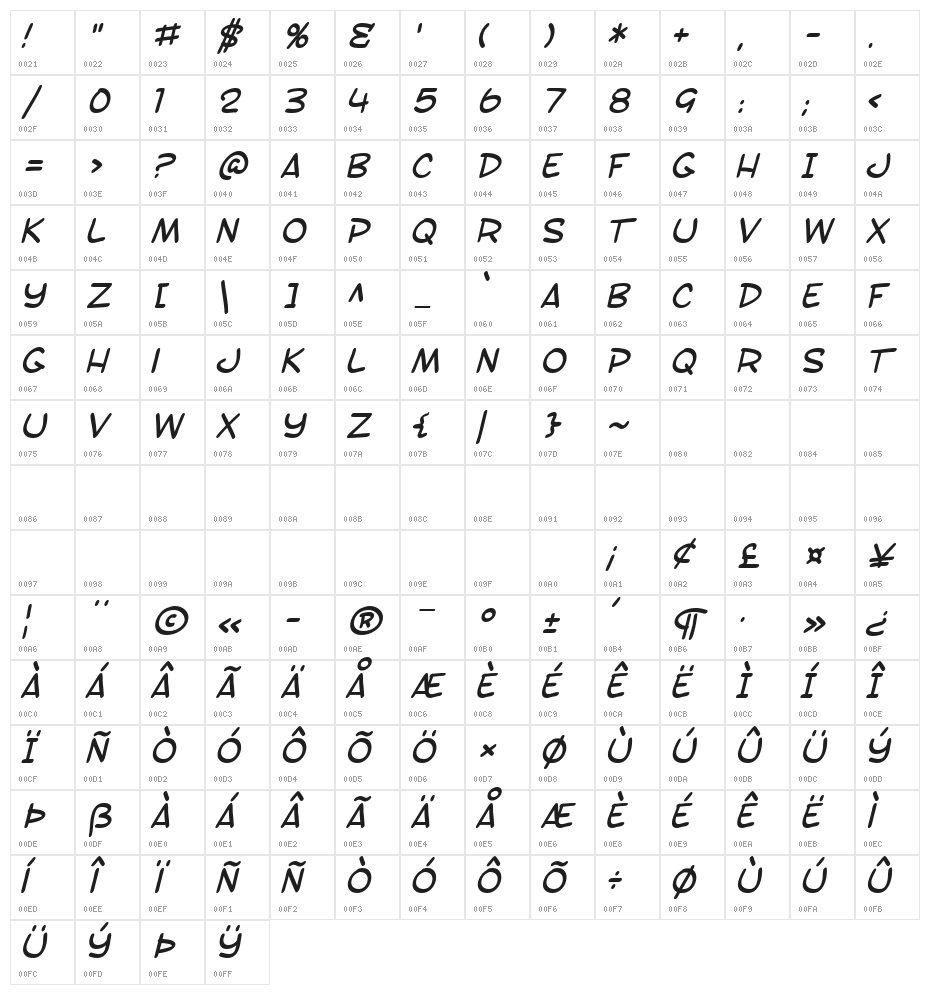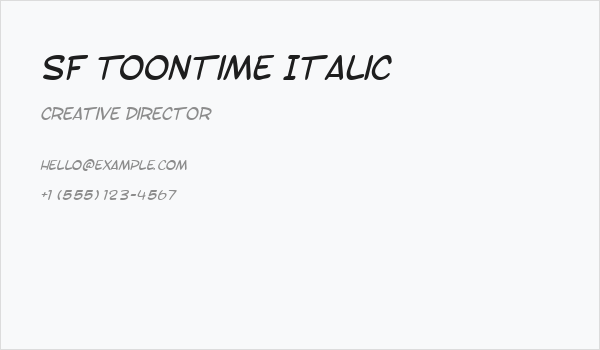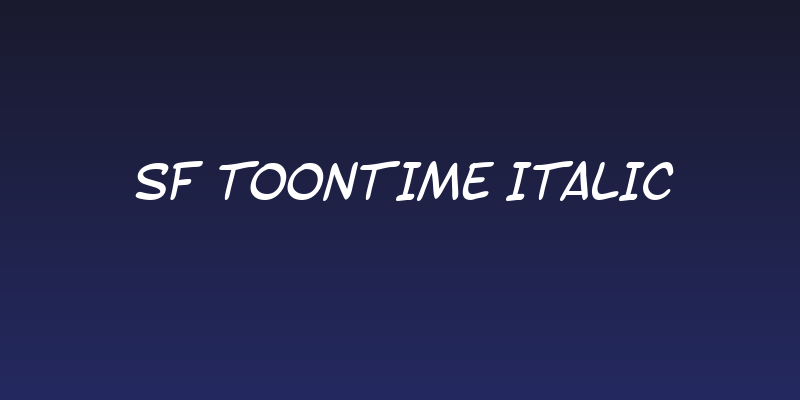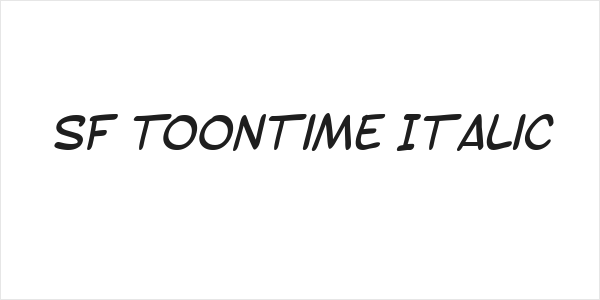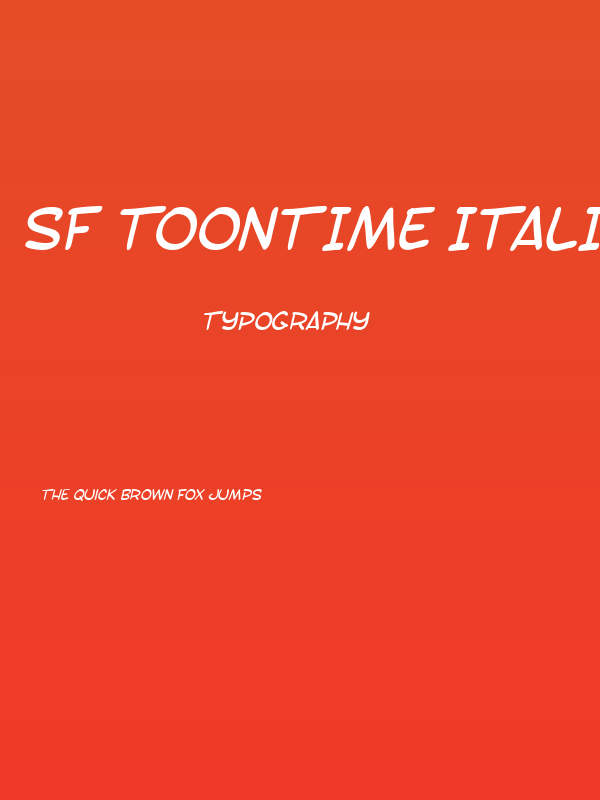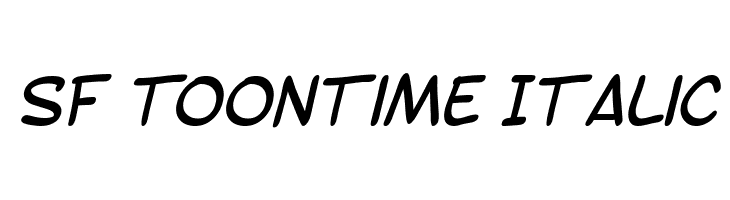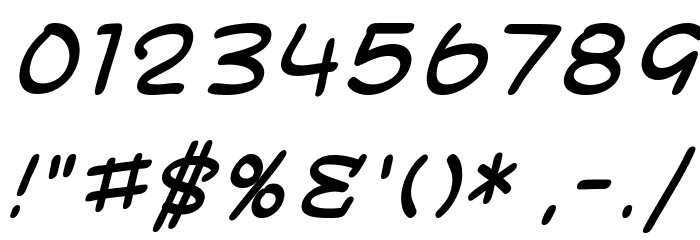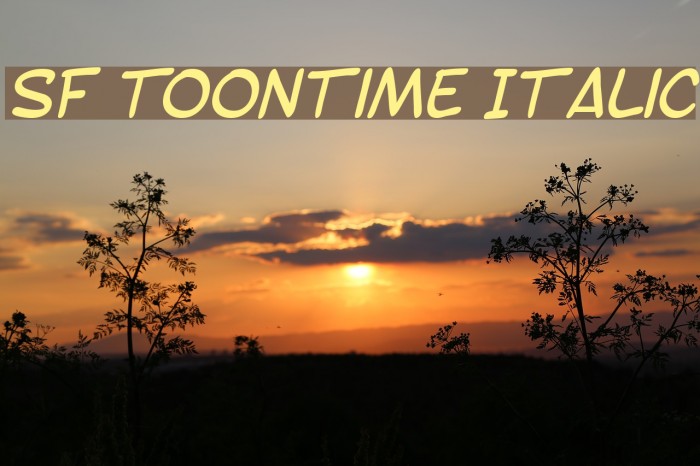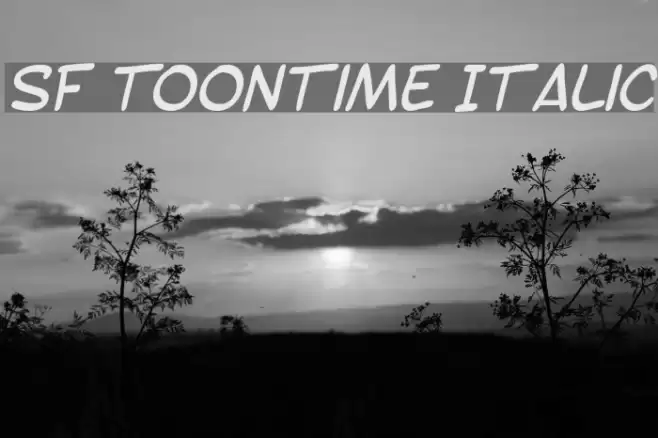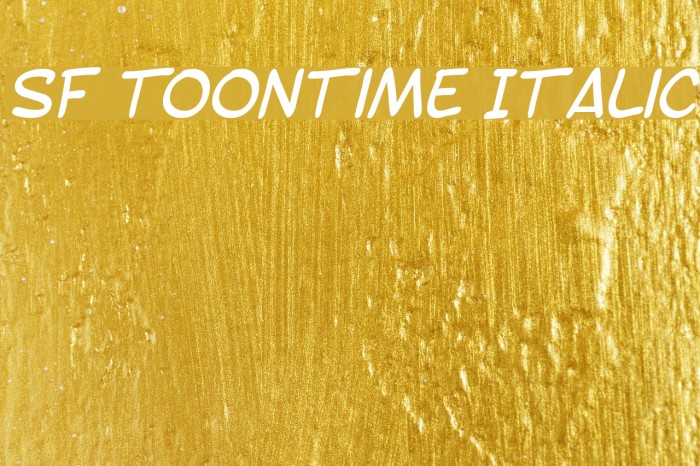
SF Toontime Italic Font
SF Toontime Italic Description
This playful and dynamic font features a handwritten style with a slight slant, giving it an energetic and informal appearance. The characters are rounded and bold, with a consistent stroke width that maintains readability while adding a touch of whimsy. The uppercase and lowercase letters are well-balanced, and the numerals are clear and distinct. Special characters are creatively integrated, enhancing the font's versatility. Its overall design exudes a friendly and approachable vibe, making it ideal for projects that require a fun and engaging look.
| Overall Style | Playful |
| Use Case | Headlines, Logos, Informal Text |
| Proposed Projects | Ideal for children's books, comic strips, playful branding, and casual invitations. |